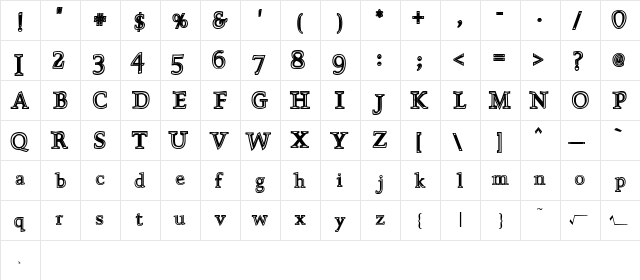
Hokum Regular
Design Context for Hokum Typeface
Hokum takes a measured approach to typography — its balanced proportions and neutral character make it a reliable workhorse for both digital and print work.